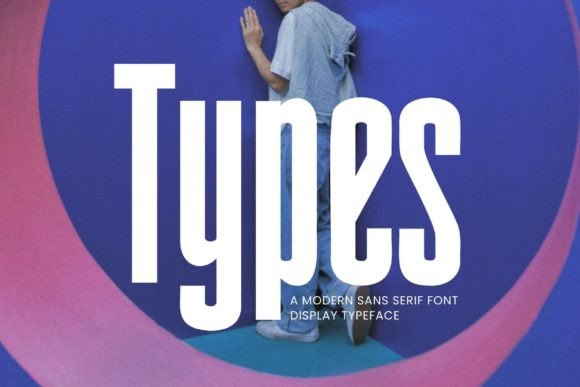
Dive into the world of Types, a sans serif font family that captivates with its contemporary aesthetic and impeccable functionality. Designed with meticulous precision by the skilled artists at Graphicxell, Types is a stunning creation that elevates your designs to new heights.
Experience the allure of Types, a font that embodies modern elegance like no other. Its clean lines and generous letter heights create a harmonious blend of sophistication and readability, making it ideal for a multitude of design endeavors.
Unleash your creativity and let Types work its magic across a vast array of projects. From eye-catching logos that demand attention to captivating posters that ignite the imagination, Types is your trusted companion, transforming your ideas into visual masterpieces.
With its tall, slender structure, Types exudes a sense of grace and poise, adding a touch of professionalism to your designs. Yet, it retains a friendly and approachable demeanor, ensuring your messages resonate with audiences on a personal level.
Immerse yourself in the versatility of Types, a font that seamlessly adapts to diverse design styles. Its inherent adaptability makes it the perfect choice for both print and digital mediums, allowing you to create stunning designs that transcend boundaries.
Discover the endless possibilities that await you with Types, a font that empowers you to express your individuality and leave a lasting impression. Its remarkable versatility makes it an invaluable asset for designers, marketers, and creative professionals who seek to captivate and inspire with every design they create.